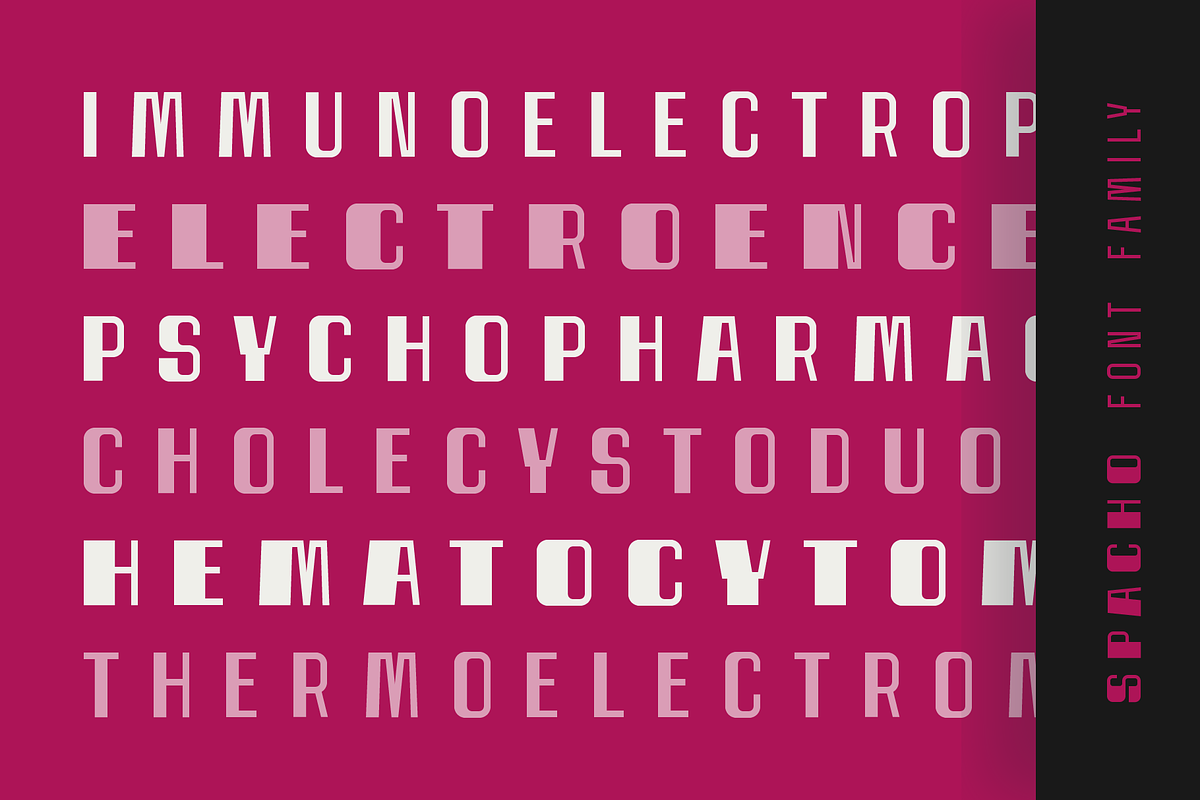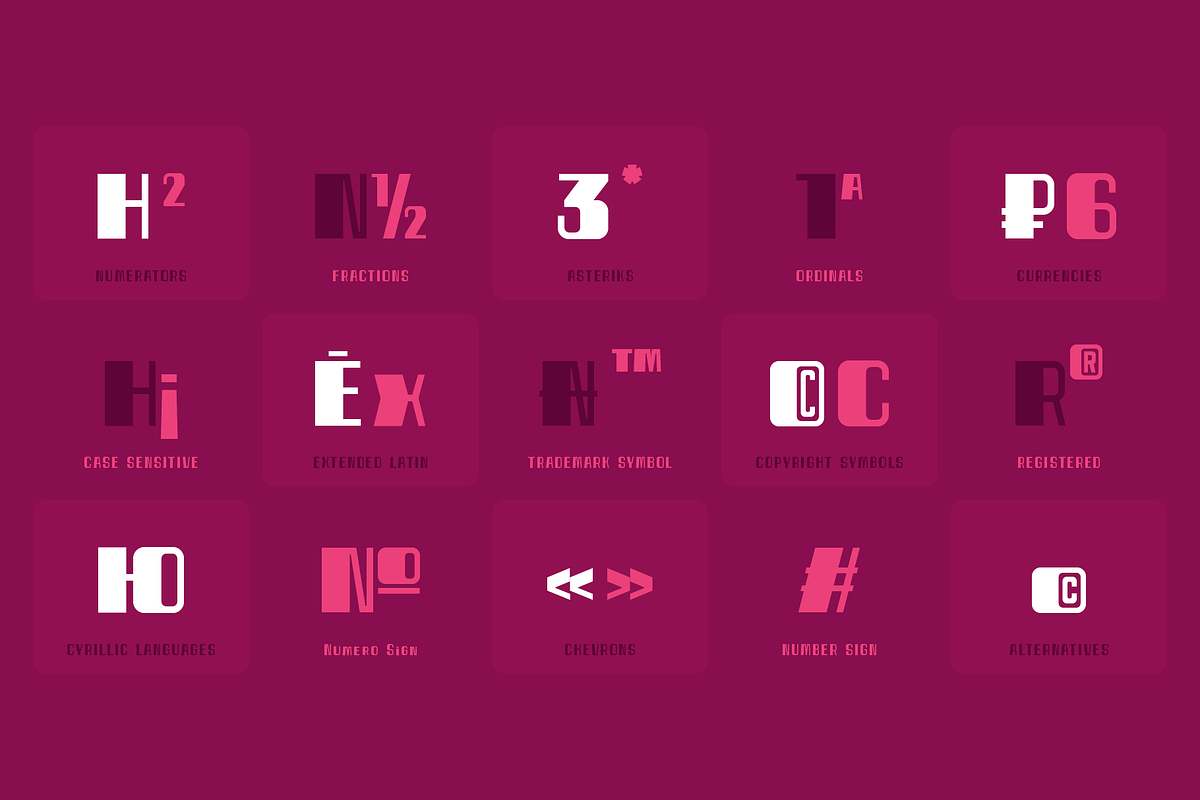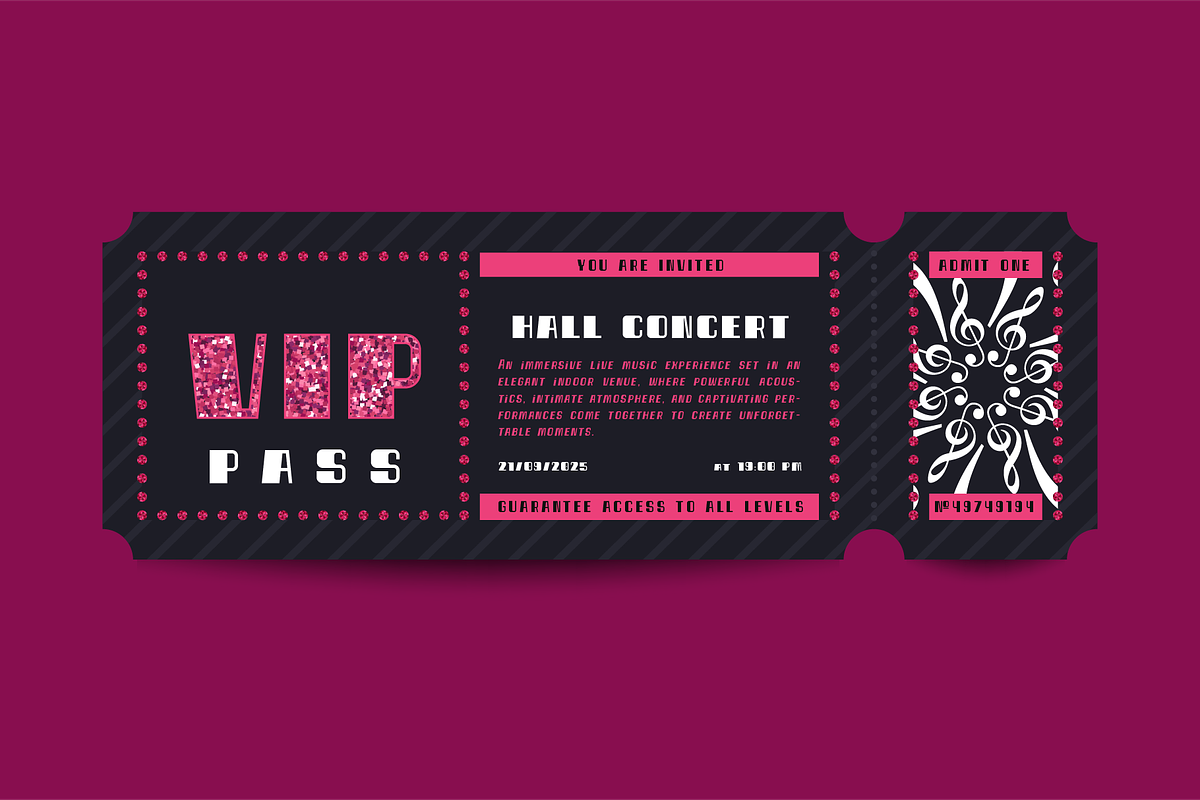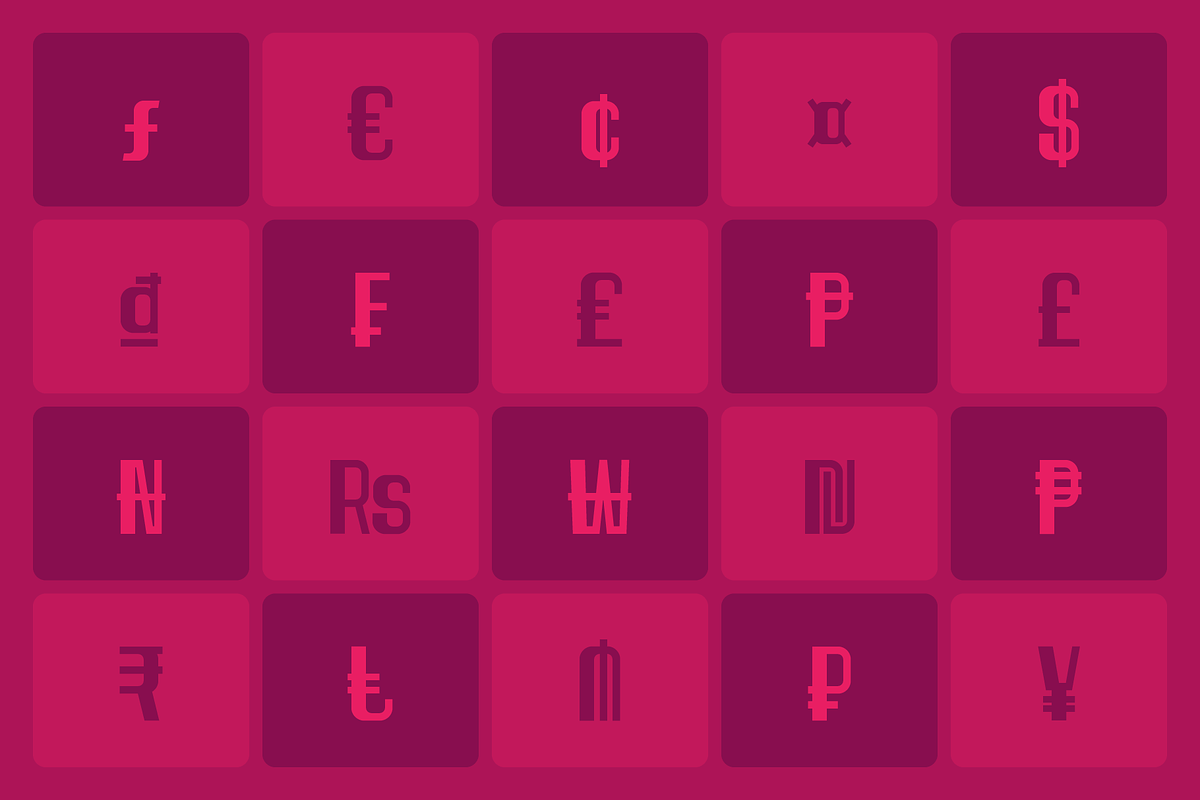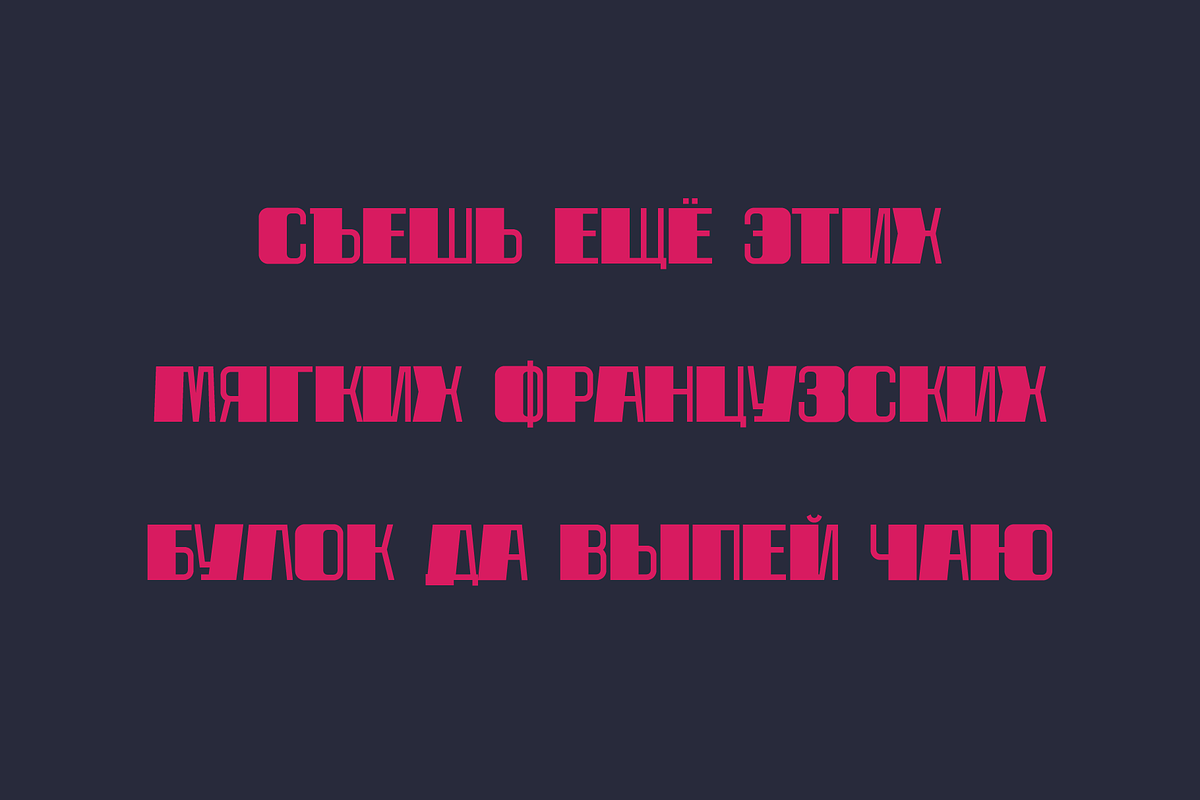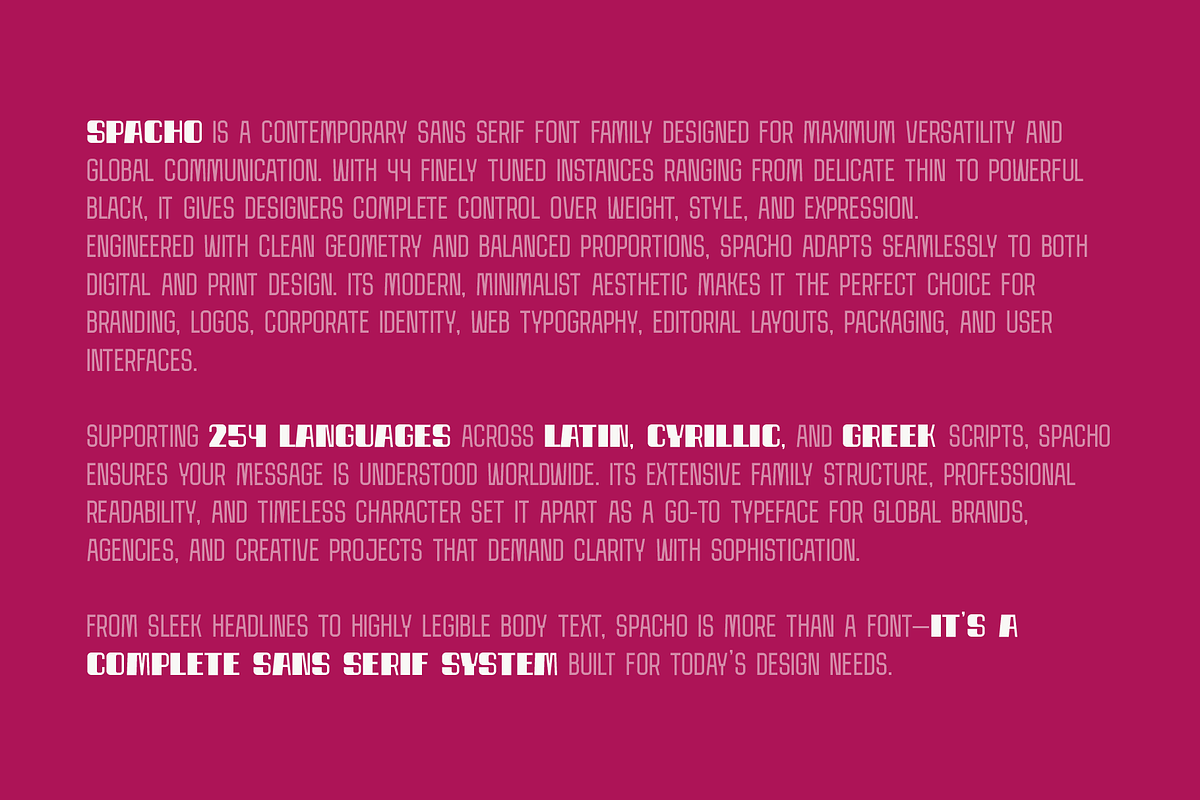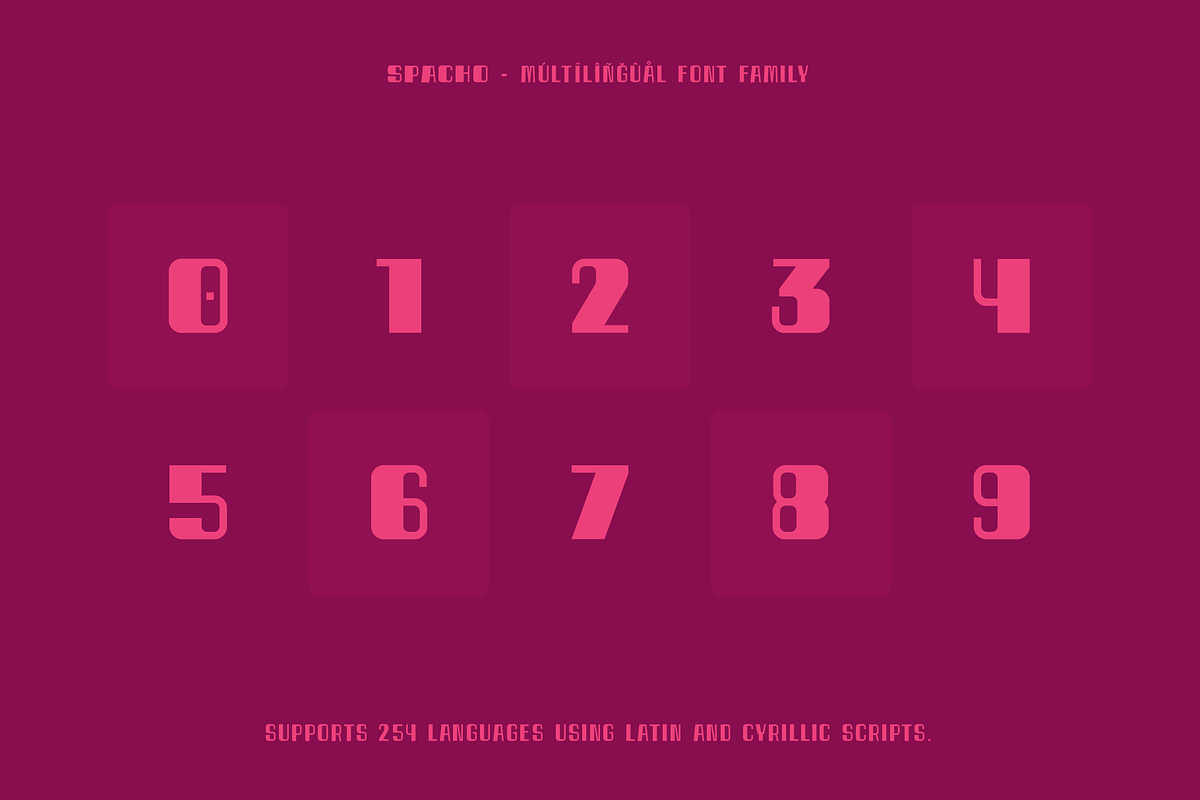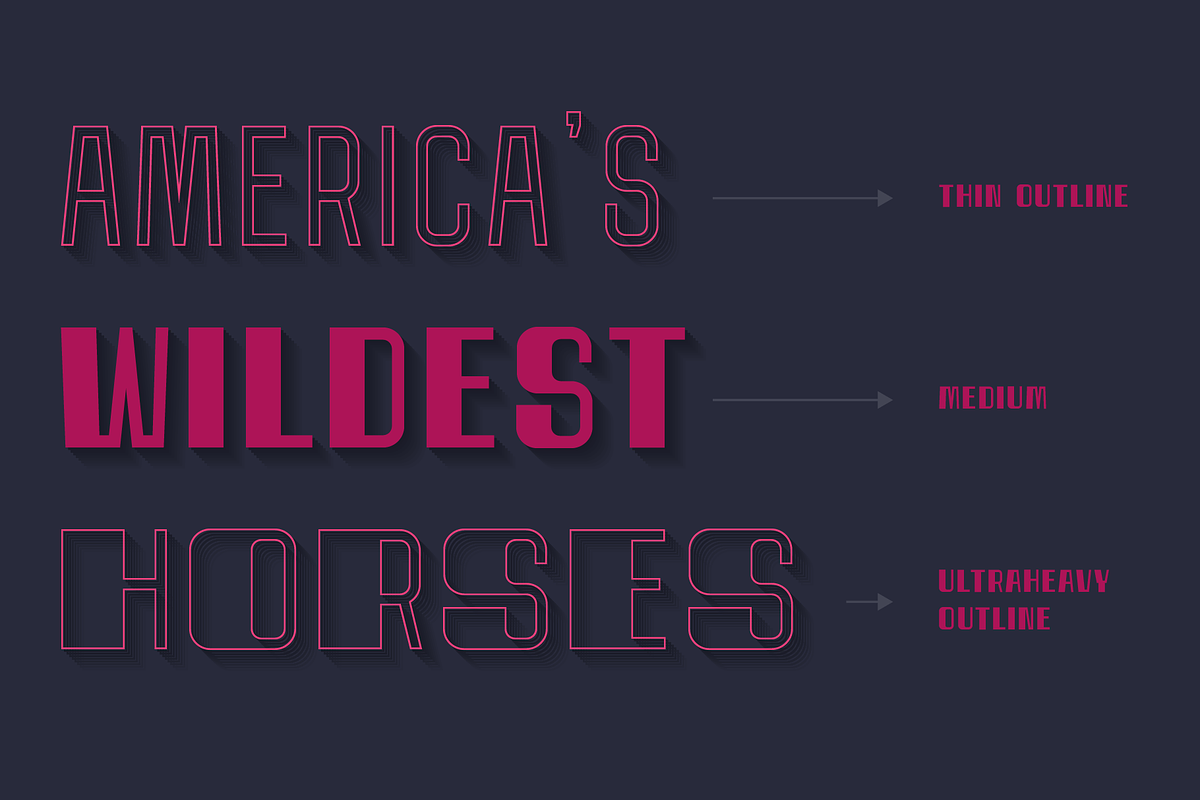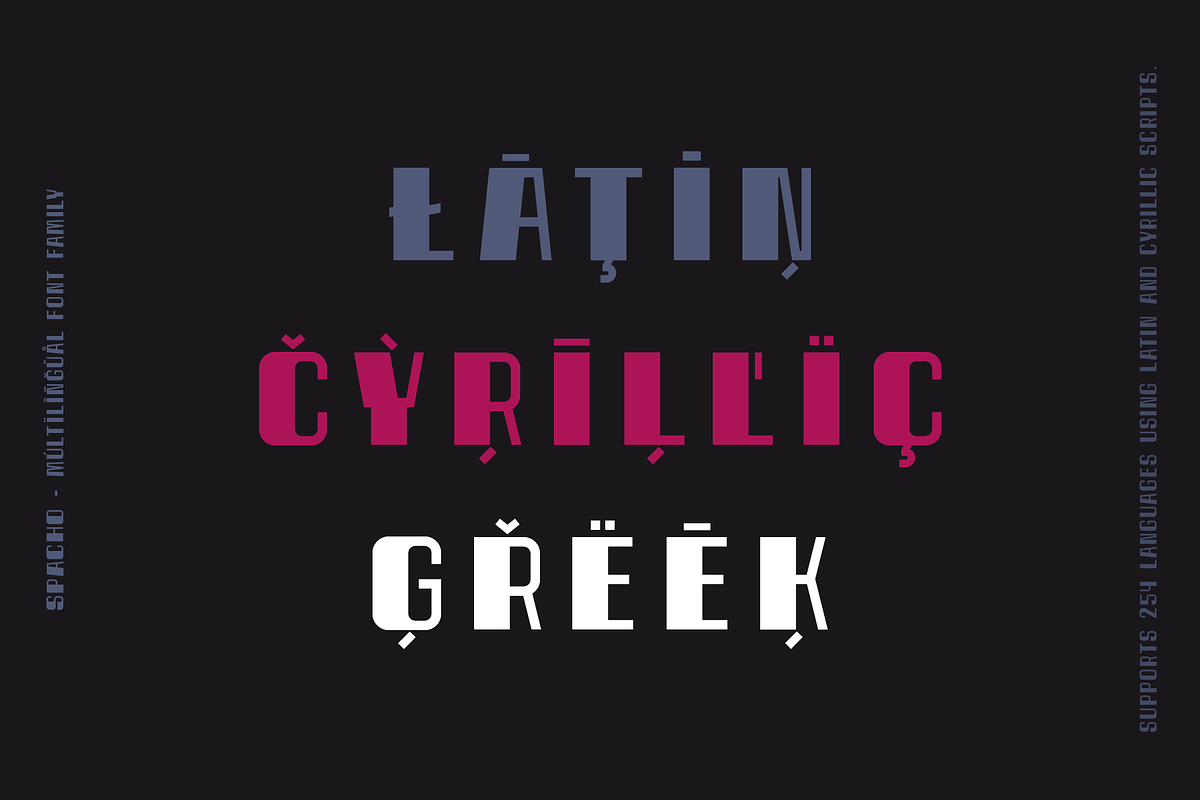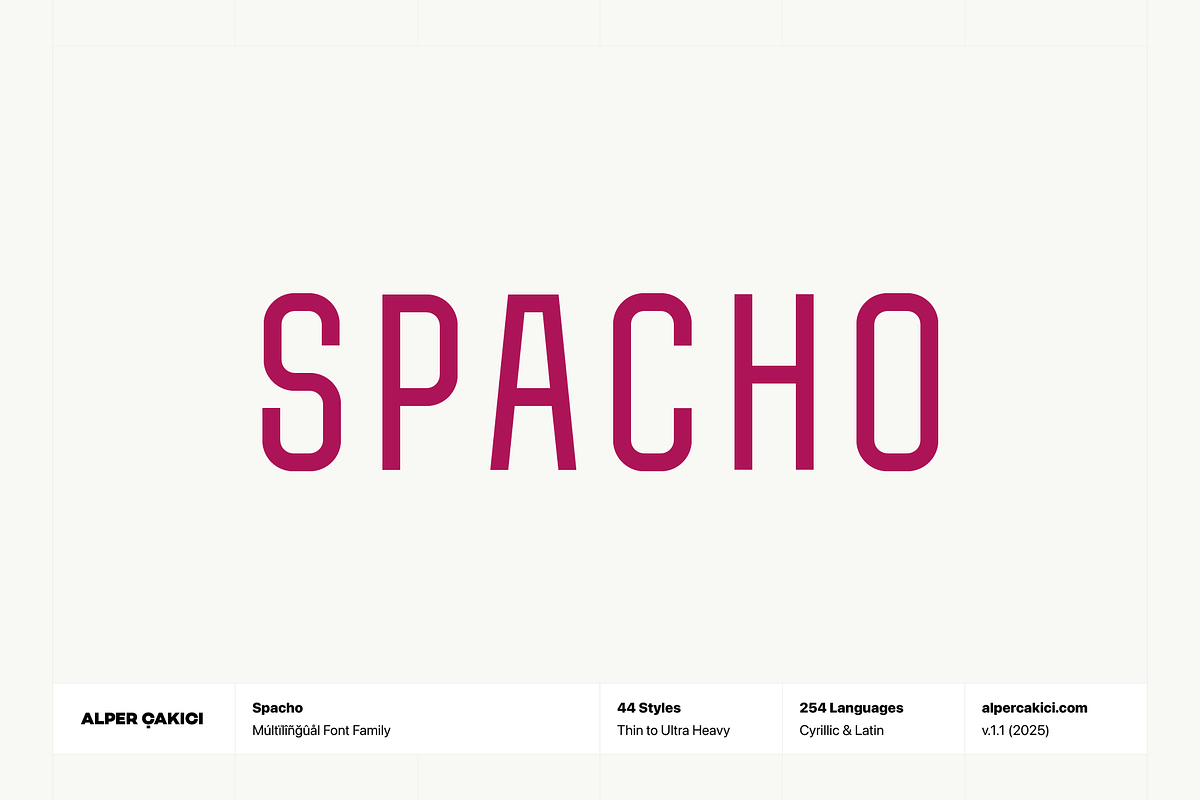
Spacho Font Family (44 Fonts)
✨ Spacho – A Modern Sans Serif Font Family
Spacho is a clean and versatile sans serif typeface family built with geometric precision and contemporary style. With 44 instances ranging from Thin to Black and matching Italics, Spacho adapts effortlessly to any design context—from bold, impactful headlines to refined body text. Designed for modern branding, editorial layouts, web typography, and packaging, Spacho combines clarity with timeless sophistication.
Modern Simplicity: A geometric sans serif with balanced proportions and minimal aesthetics. Global Communication: Supports 254 languages across Latin, Cyrillic, and Greek scripts. Professional Quality: Carefully kerned, spaced, and optimized for both print and digital use. Versatility at Scale: 44 styles for complete flexibility in logos, branding, web, and editorial design. Premium Craftsmanship: Engineered for precision and consistency across the entire family. Free Updates & Support: Always kept up to date, with responsive designer support included.
Spacho supports 254 languages across Latin, Cyrillic, and Greek scripts, ensuring global usability for designers and brands.
Spacho was created by Alper Çakıcı, a multidisciplinary designer with over a decade of experience in typography, branding, and digital product design. His fonts emphasize clarity, precision, and elegance, empowering designers with professional-quality tools for global communication.